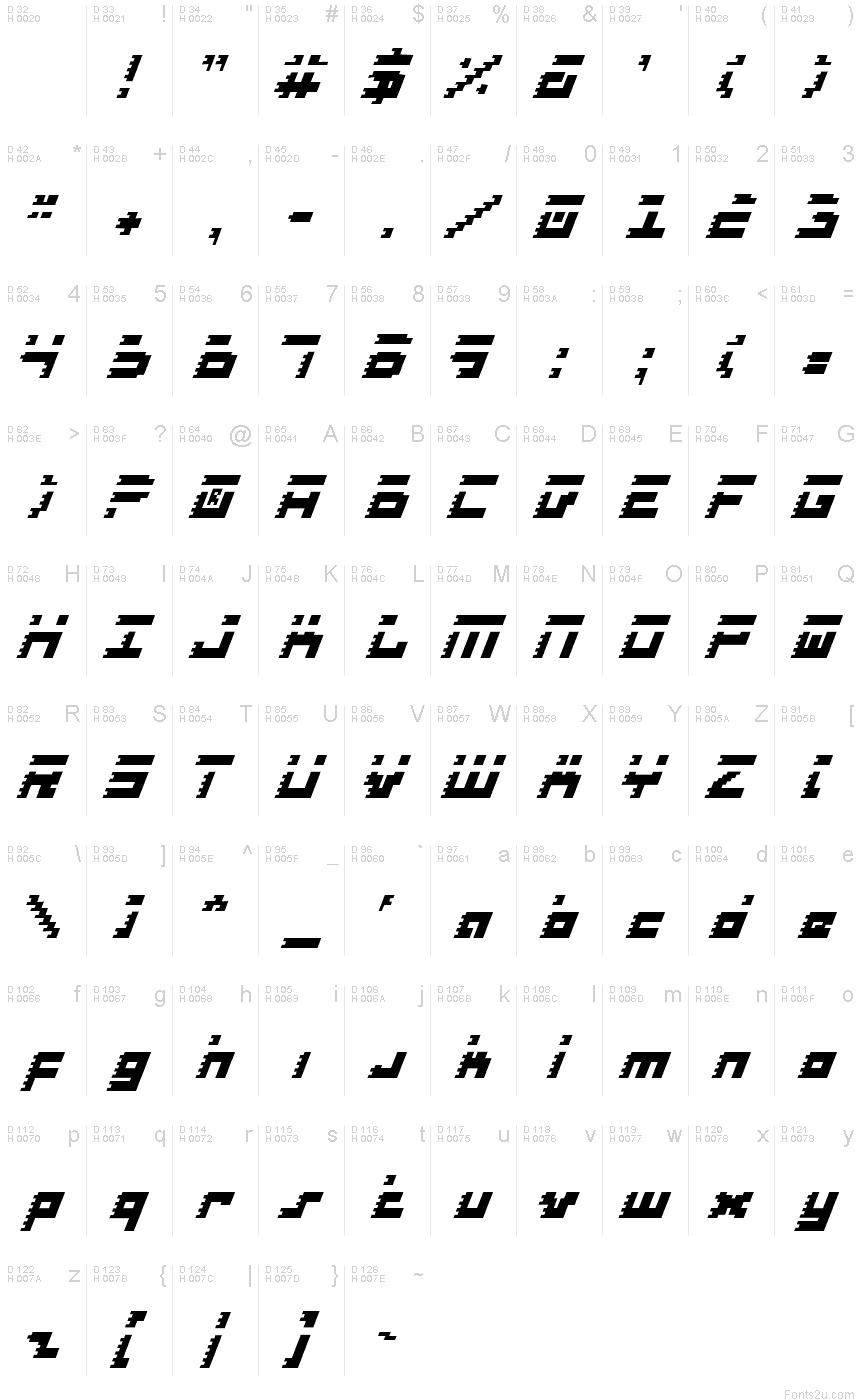
Roid Rage Condensed Italic
Roid Rage Condensed Italic by Iconian Fonts is a free slanted techno display font built from heavy, wedge-cut letters that look like they are moving at speed. The forms are tightly packed and aggressively angular, with stepped notches along the left edges that give the whole design a chopped, mechanical rhythm.
It fits naturally into game logos, sci-fi posters, racing titles, cover lines, and title cards where a free font needs instant velocity without going full grunge. Use it when you want short words or initials to feel urgent and machine-driven, because the forward lean and repeated cutaway details do most of the work.